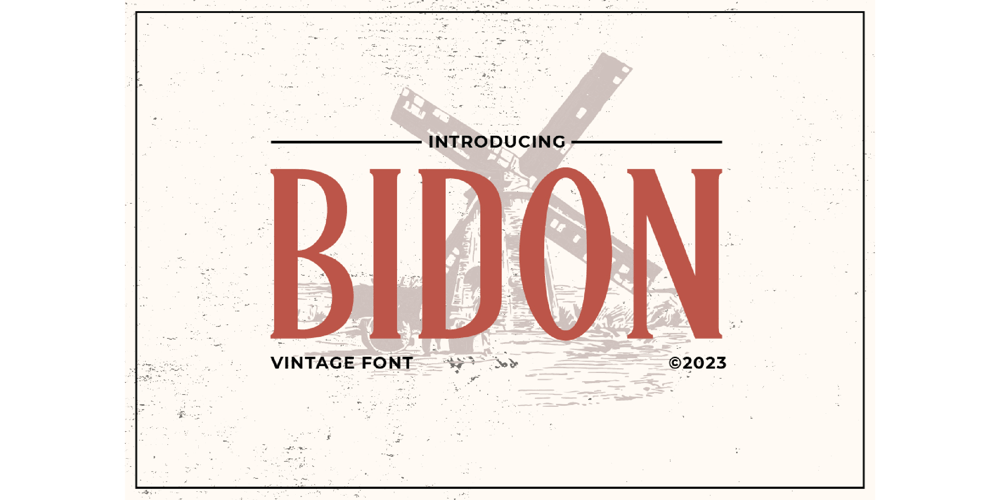
Bellfast Serif Vintage Font
Bellfast Serif Vintage Font Font Family was designed by Adrian Syauqi and published by Firstype Studio. Bellfast Serif Vintage Font contains 1 styles and family package options. Introducing Bidon, a rugged serif cowboy font that brings the spirit of the Wild West to your designs. Bidon is the perfect choice for capturing that cowboy charm on billboards and posters. With its distinct character, this font adds a touch of the Old West to your projects. Bidon is available in multiple licensing options to meet your diverse design needs.Wild West Appeal:Bidon embodies the essence of the Wild West, making it an ideal font for creating an authentic cowboy atmosphere. Its bold and rustic design transports your audience to a time when the frontier was still uncharted.Perfect for Cowboy Billboards:Bidon is tailor-made for cowboy-themed billboards. Whether you’re promoting a rodeo, western show, or cowboy event, this font gives your message the rugged and adventurous look it deserves.Great for Circus Events:Not limited to just cowboy themes, Bidon’s versatile character makes it suitable for circus-themed designs as well. Its bold serifs and distinctive letterforms bring a touch of vintage circus charm to your promotional materials.Multiple Licensing Options:We understand that different projects have different licensing requirements. Bidon is available in various licensing options, including personal, commercial, and extended licenses. Choose the one that suits your specific project.Saddle Up Your Typography:With Bidon, you’re not just choosing a font; you’re saddling up your typography for an unforgettable journey through the Wild West or under the big top.Choose Your License:Explore our licensing options and select the one that aligns with your project’s needs. Whether you’re a designer, event organizer, or creative enthusiast, Bidon has a license that fits your requirements.Embrace the Wild West with Bidon – Where Cowboy Adventure Awaits.This description highlights the Wild West appeal of the “Bidon” serif cowboy font, its suitability for cowboy billboards and circus-themed designs, and the availability of multiple licensing options to cater to different users.–Upppercase